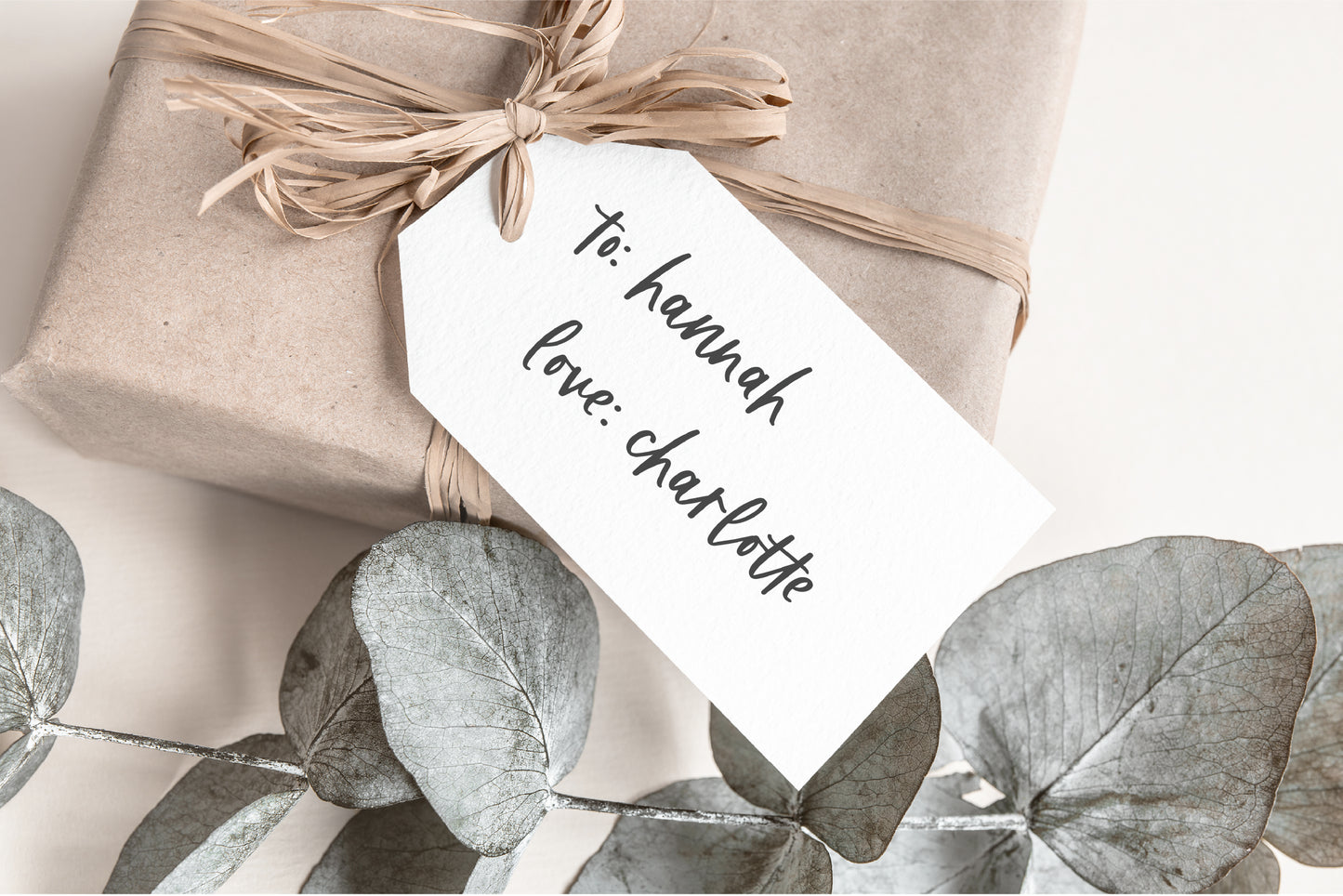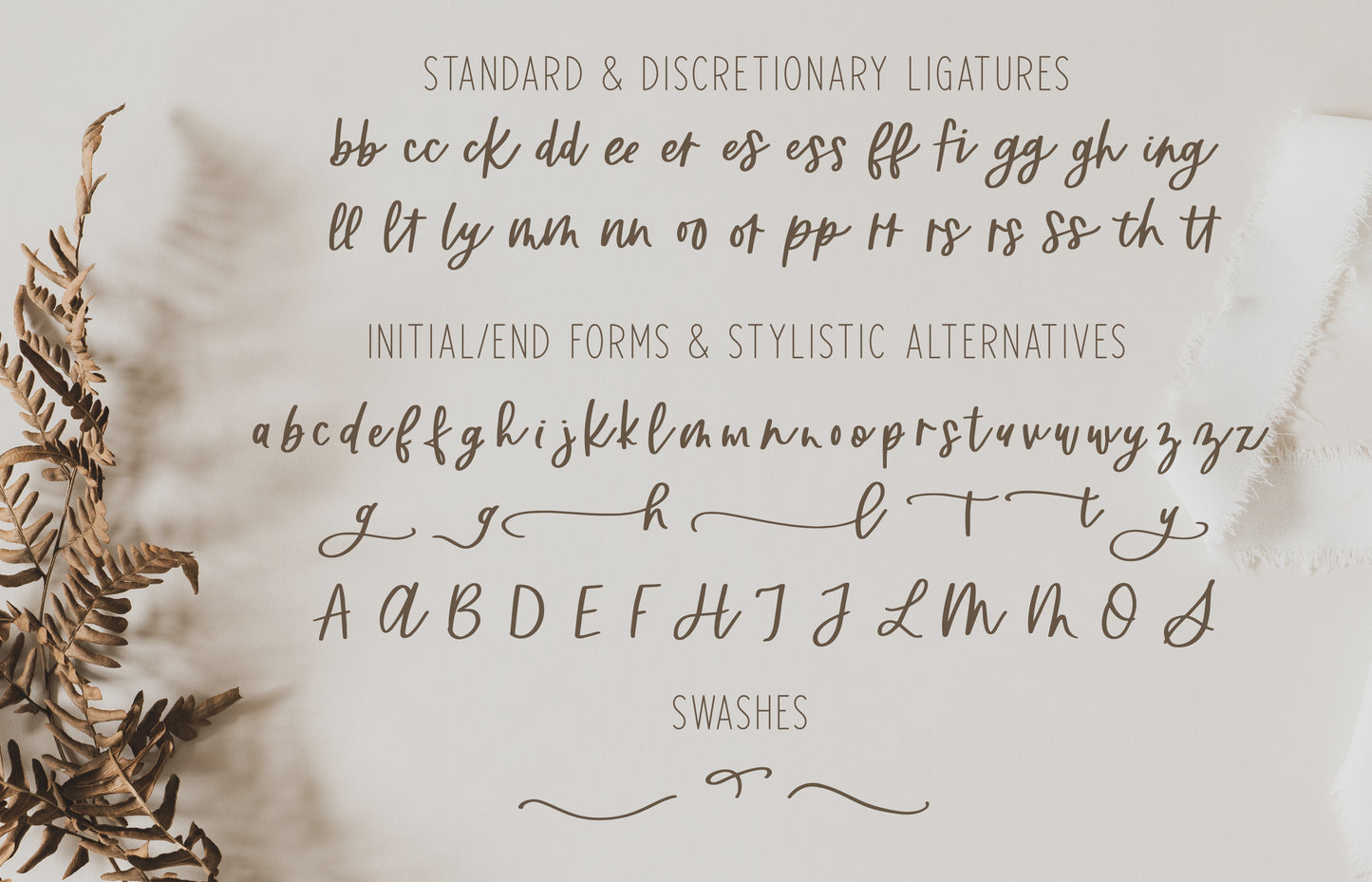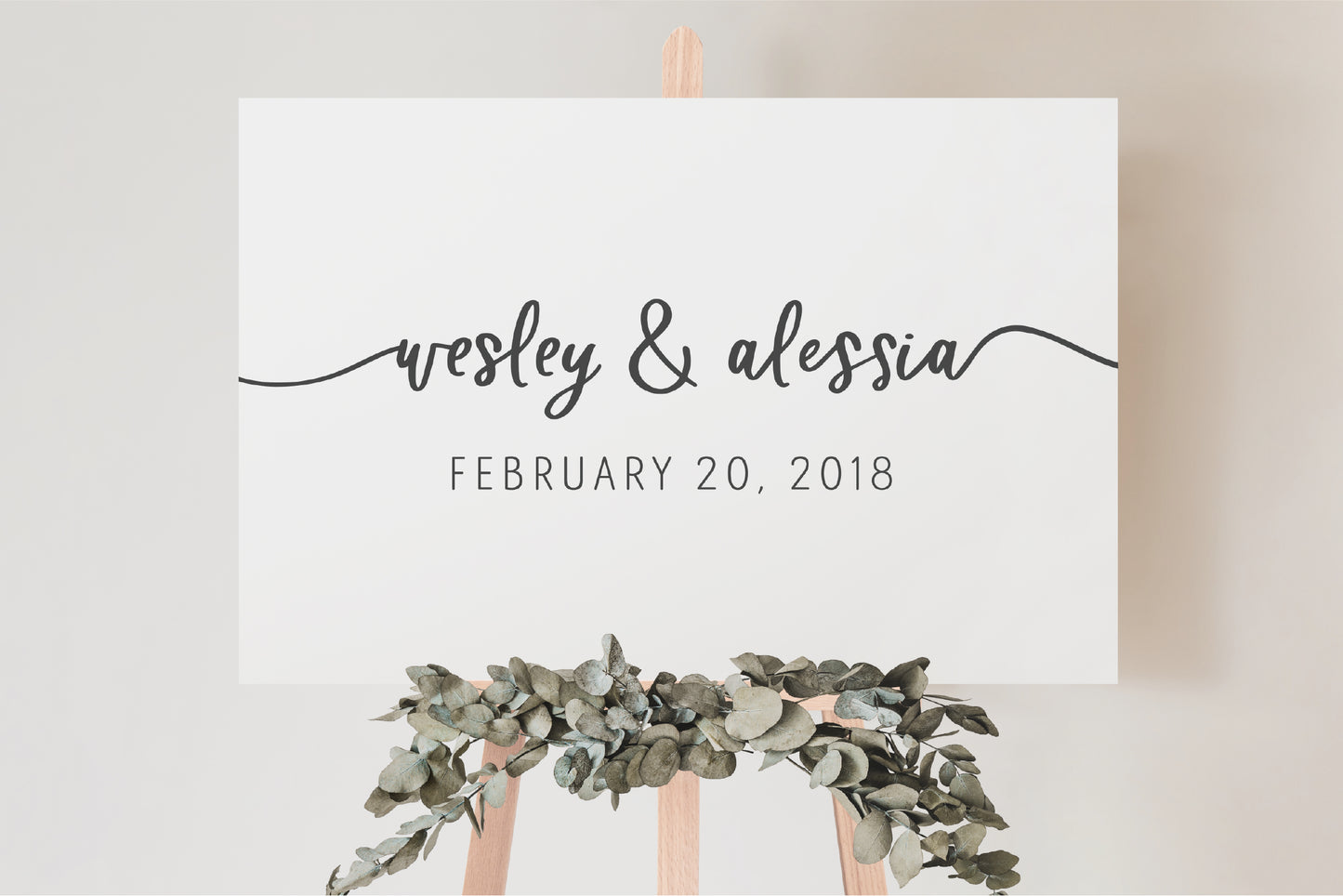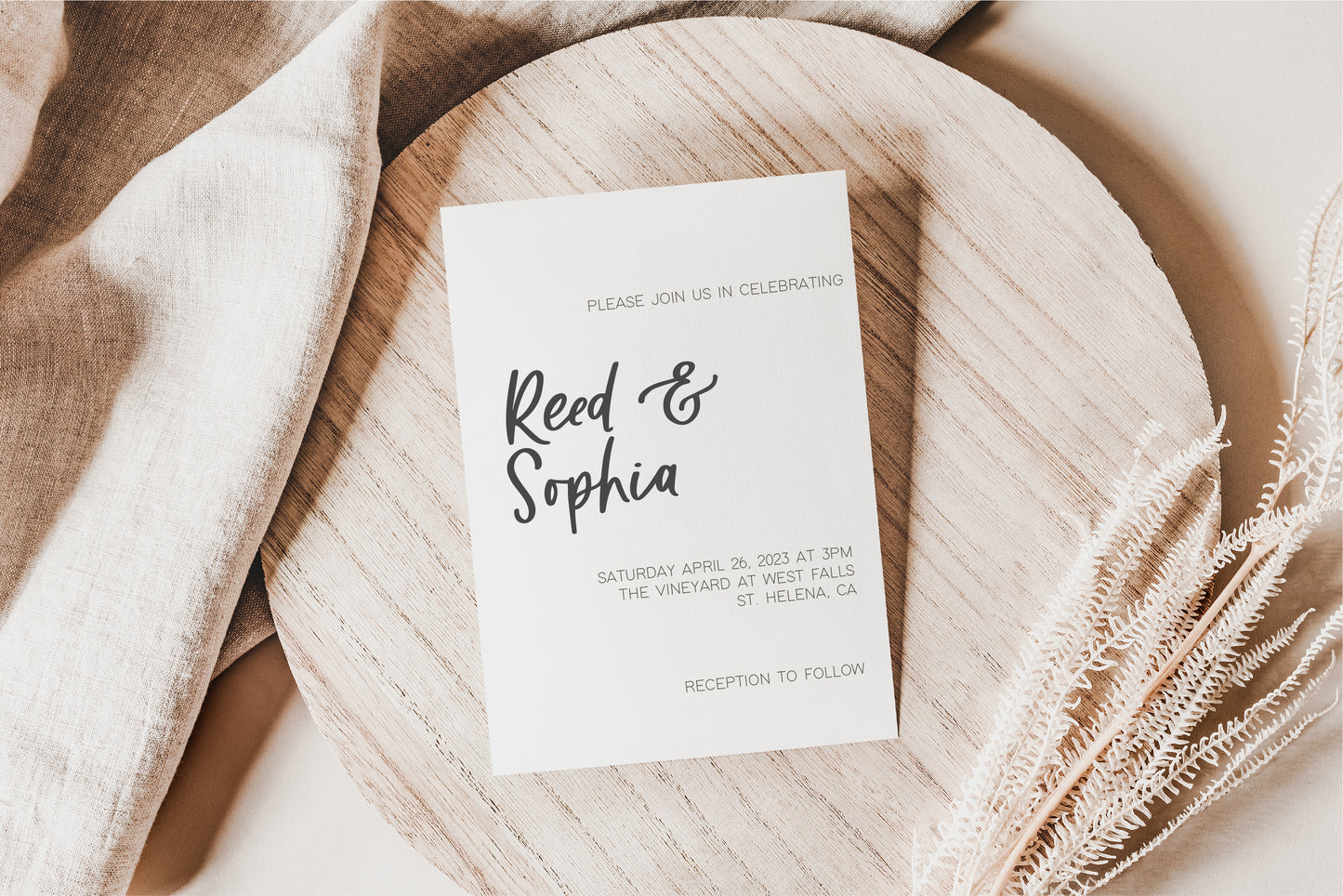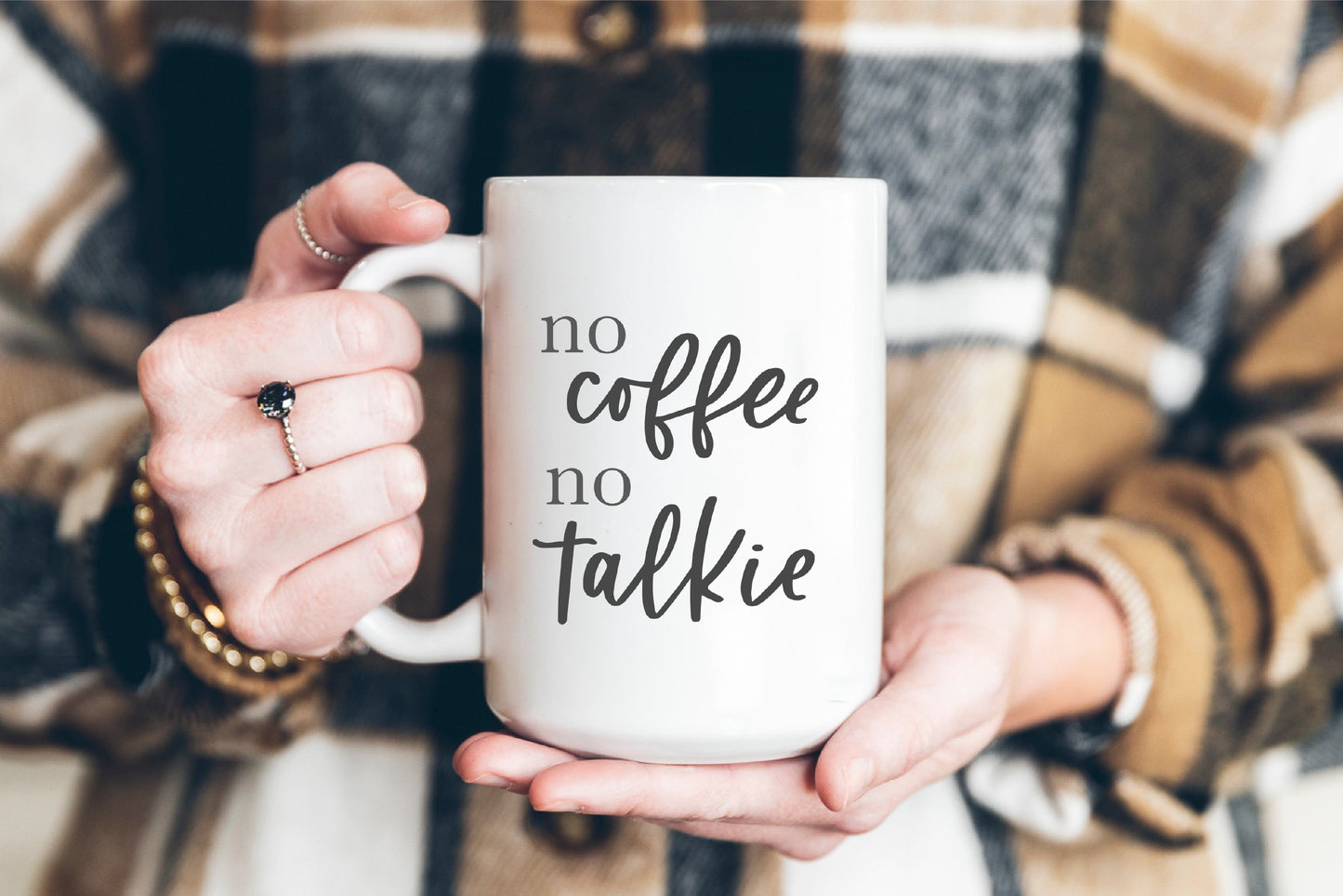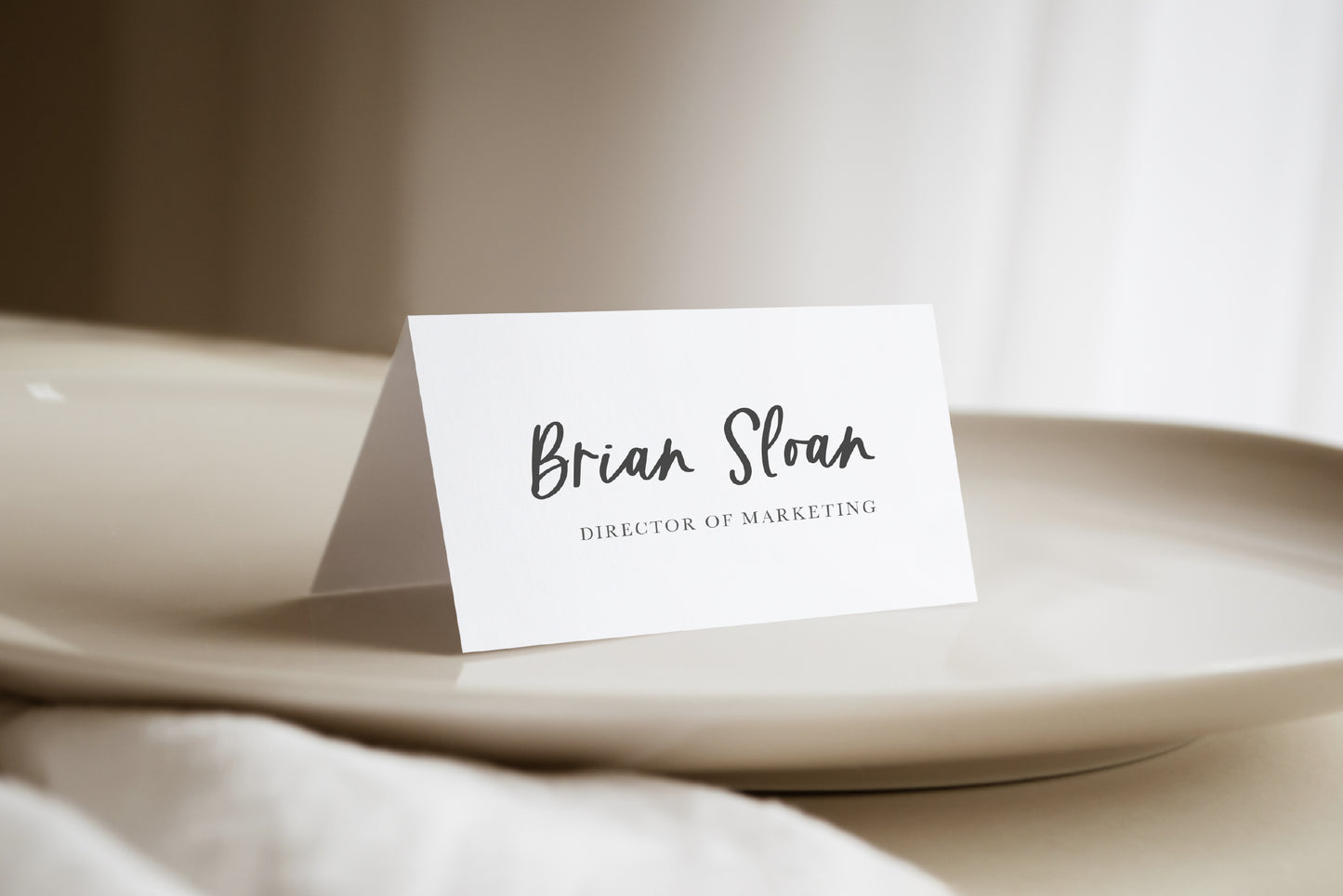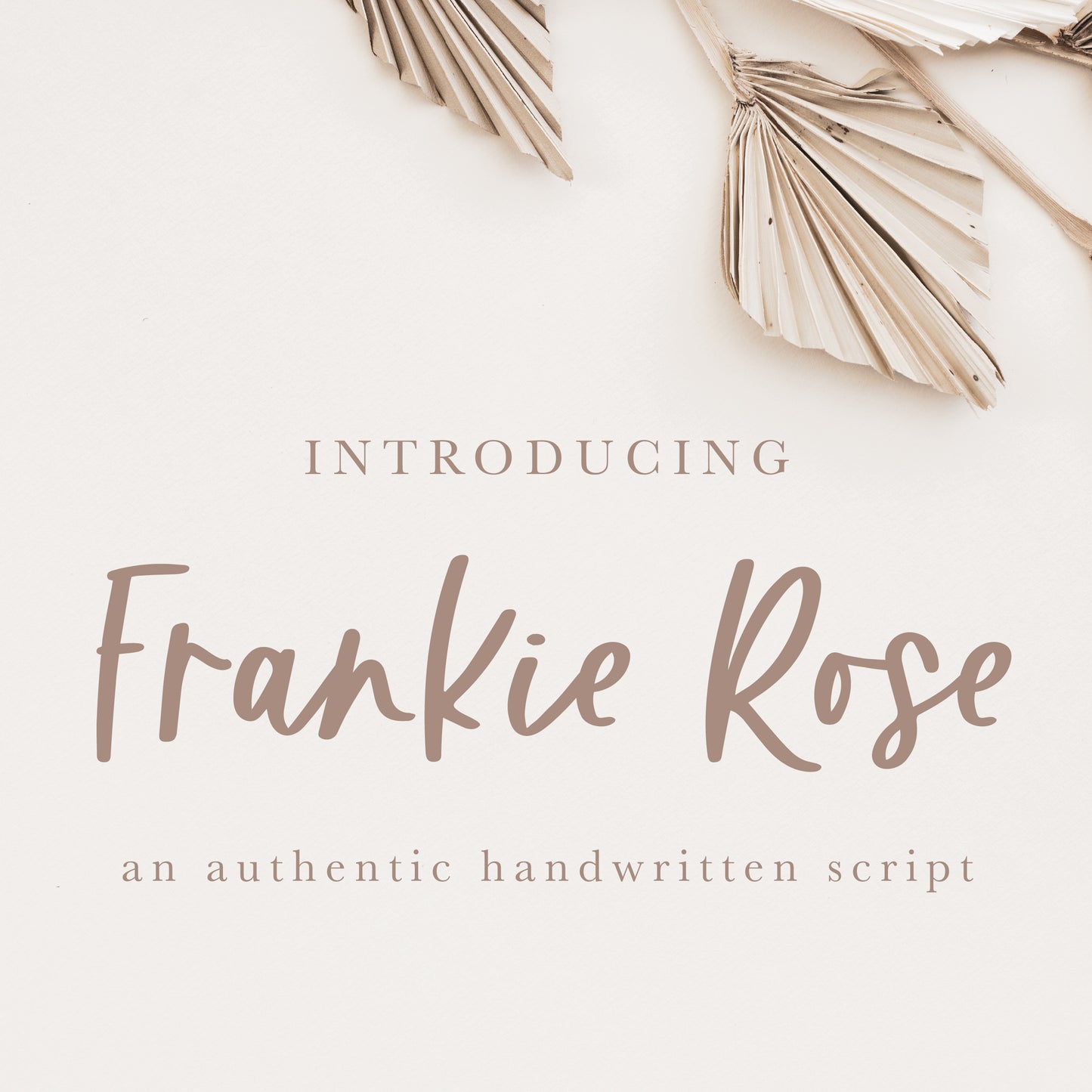
FONT - Frankie Rose - script handwritten cursive hand lettered font, modern script
introducing, Frankie Rose, an authentic handwritten font
- full uppercase + lowercase characters, numbers
- symbols + punctuation
- western european language support
- over 95 bonus characters and/or ligatures